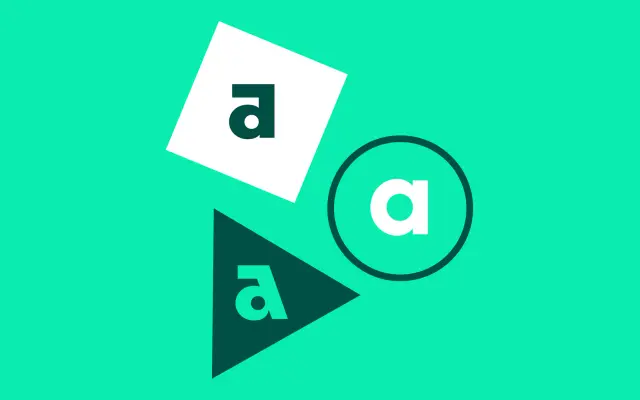
F37 August
A twelve-style geometric sans from F37 in the Paul Renner lineage, with italics and a modernist editorial voice.
A geometric sans from F37 Foundry across six weights with matching italics, framed around Paul Friedrich August Renner and his writing on mechanised graphics. The reference points place it in the Futura family tree, with a contemporary cut suited to identity, editorial and cultural work. F37 pair it with F37 Zagma Serif, F37 Blanka and F37 Britain Serif, supporting modernist layouts that want geometric clarity without the chill of pure Bauhaus.
F37 present August through Paul Friedrich August Renner and his book on mechanised graphics, framing the design as a contemporary geometric sans rooted in the Futura lineage.